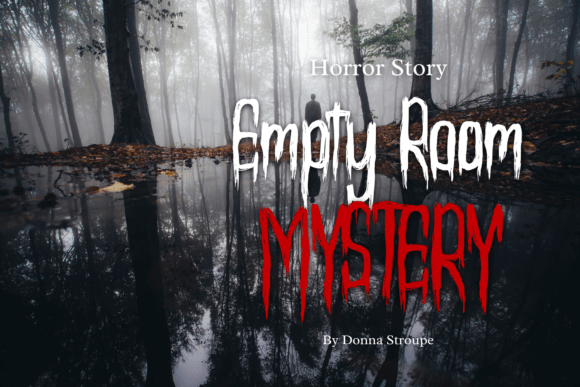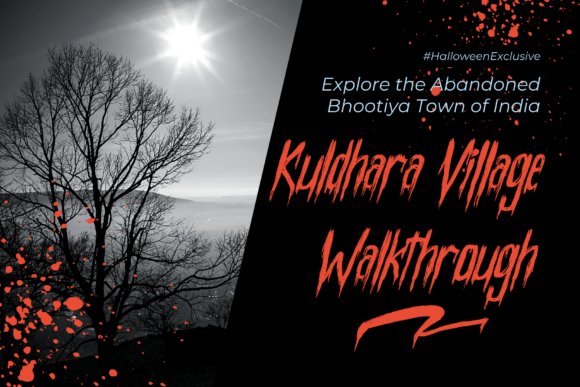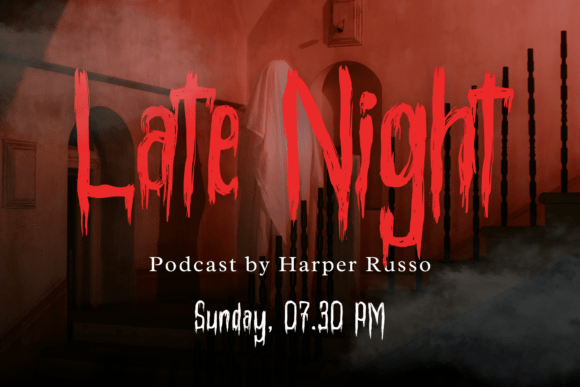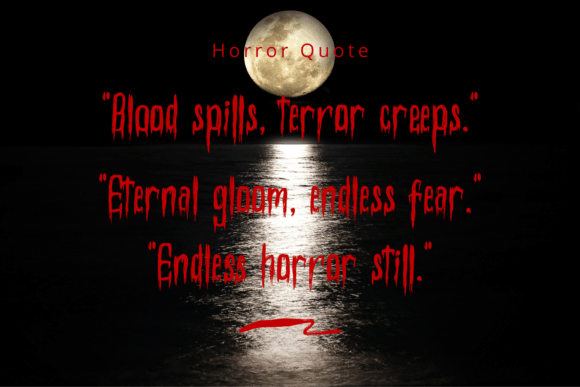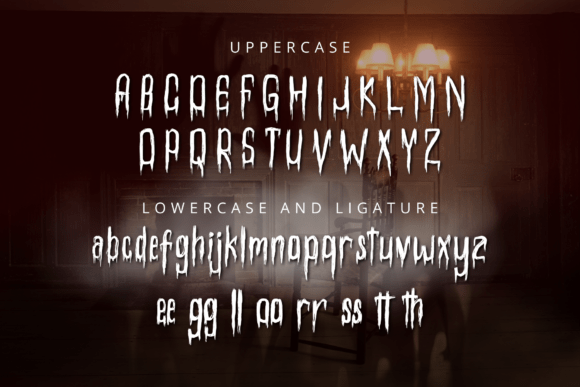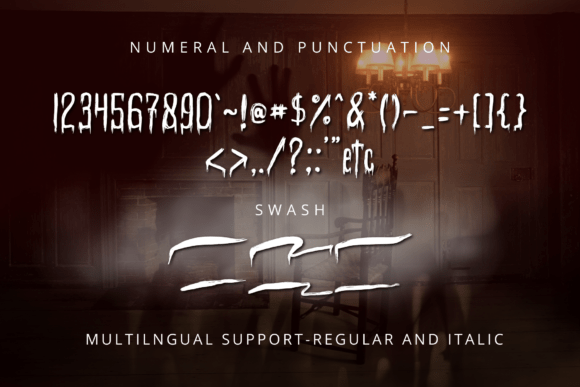
Introduction to Rottenburn Font Font
Fonts play a crucial role in design, and the Rottenburn Font font is a typeface that brings both character and versatility to any project. Whether you’re working on a branding project, a website, or a print design, the Rottenburn Font font offers a unique style that can elevate your work.
Rottenburn is a scary display font with rough strokes and dripping details that create a chilling Halloween vibe.
Its messy yet natural look makes it perfect for spooky posters, horror movie titles, party invitations, and eerie merchandise With its creepy, handmade style and subtle blood effect, Rottenburn will bring a dark and haunting touch to any design.
Key Features of Rottenburn Font Font
Why Choose Rottenburn Font Font?
The Rottenburn Font font is more than just a typeface – it’s a design tool that helps you communicate your message with style and clarity. Its unique character set and versatile design make it suitable for a wide range of applications, from elegant invitations to bold headlines.
With its carefully crafted letterforms and balanced proportions, the Rottenburn Font font ensures readability and visual appeal across all mediums.
What makes Rottenburn Font font special?
The Rottenburn Font font stands out with its unique design, exceptional readability, and versatility across various design applications.